Hour
Hour is a fantastic, experimental variable font that employs two axes to create a 3D effect. Hour and Okta scale the multiple dots that construct each letterform to change the contrast and the angle of light. It’s crying out to be animated.
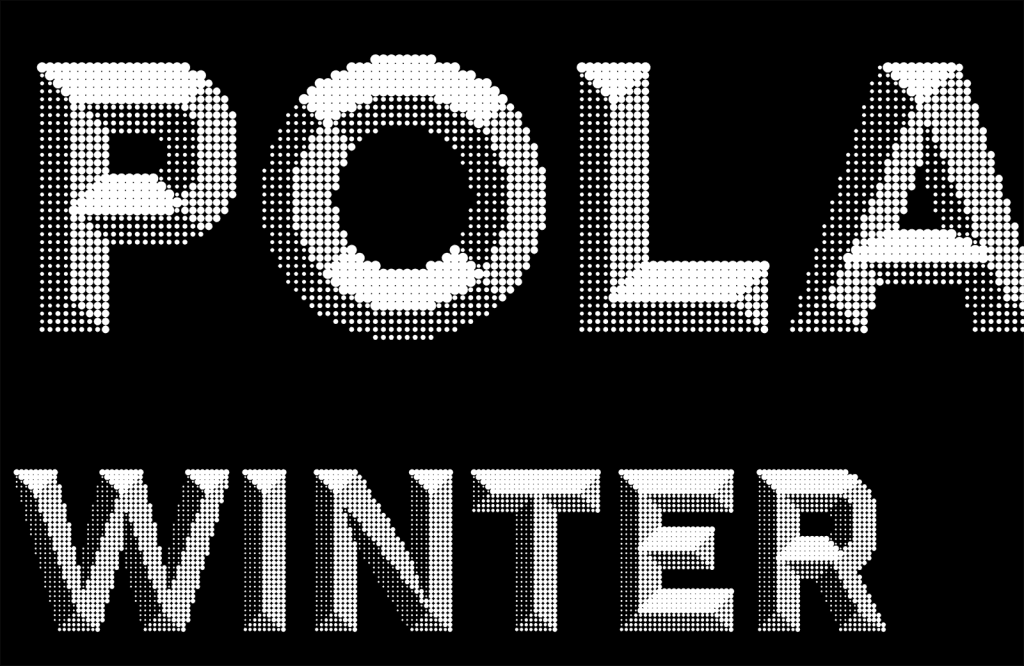
Raconteurs
Raconteurs is one of the most charming script fonts I’ve seen in some time. It loops and swirls, creating letterforms with a single stroke — if you drop a ribbon onto a page and have it magically form letters, they would look a lot like Raconteurs.
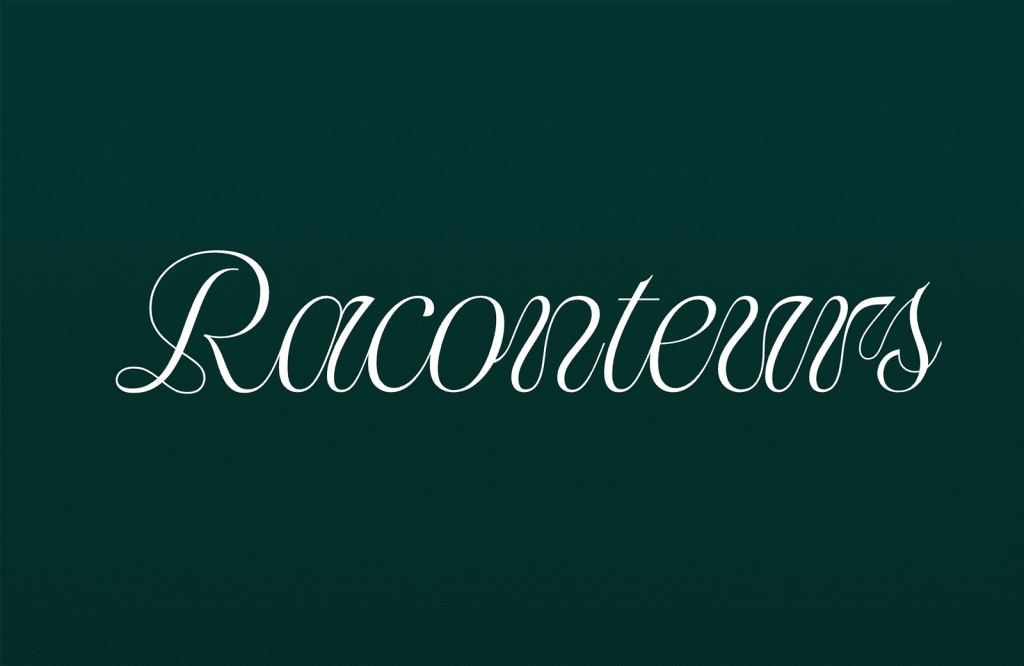
Kommuna
Kommuna is a monospaced serif—sometimes referred to colloquially as a typewriter font. It’s just had new bold and black weights added, and there are five widths available: Ultra Narrow, Normal, Wide, and Ultra Wide.
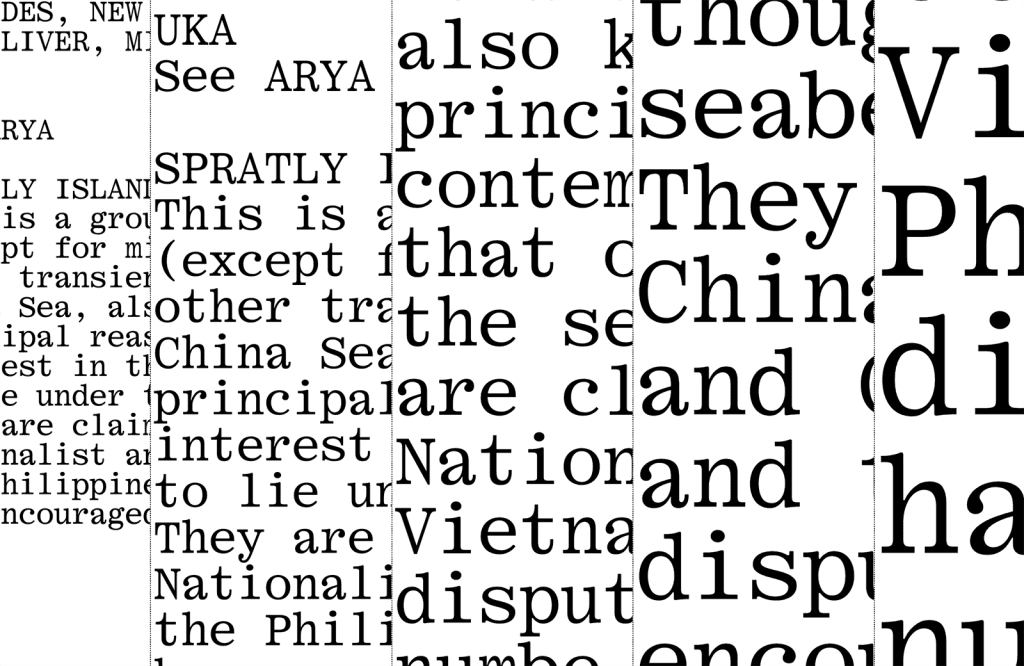
Thermal
Thermal is a contemporary serif available as a variable font with two axes — weight, and optical size. As the name suggests, thermal is a warm, enveloping typeface that is easy to read for extended periods and delivers character at display sizes.
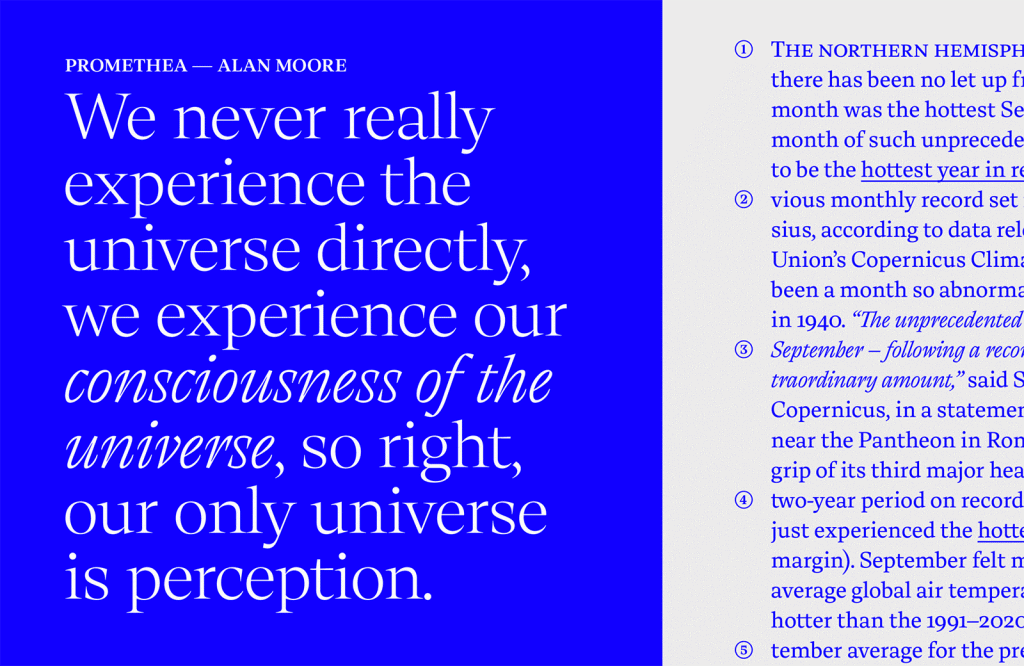
Bluteau Code
Bluteau Code is part of the Bluteau collection of typefaces, which includes 17 different families, from the original Bluteau to Arabic, Hebrew, math, slab, and more. We selected Bluteau Code from the group because finding a coding font with such elegance is rare.
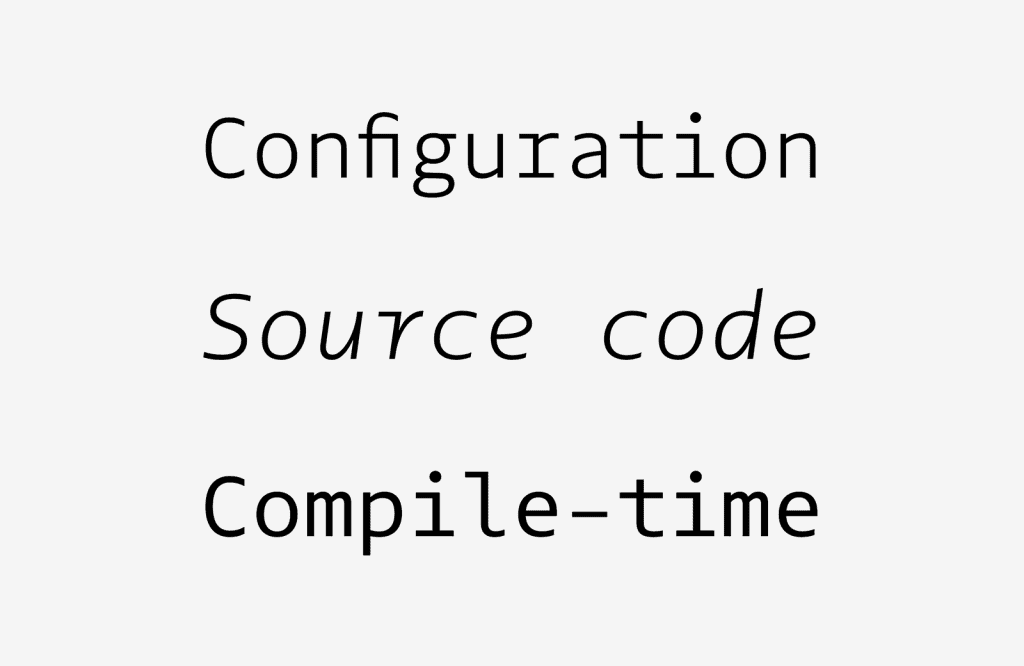
TT Espina
TT Espina is a popular display serif that has been fully updated with revised kerning, hinting, OpenType features, an extended character set including Cyrillic support, and new stylistic sets. It’s an excellent choice for display type that needs to stand out.
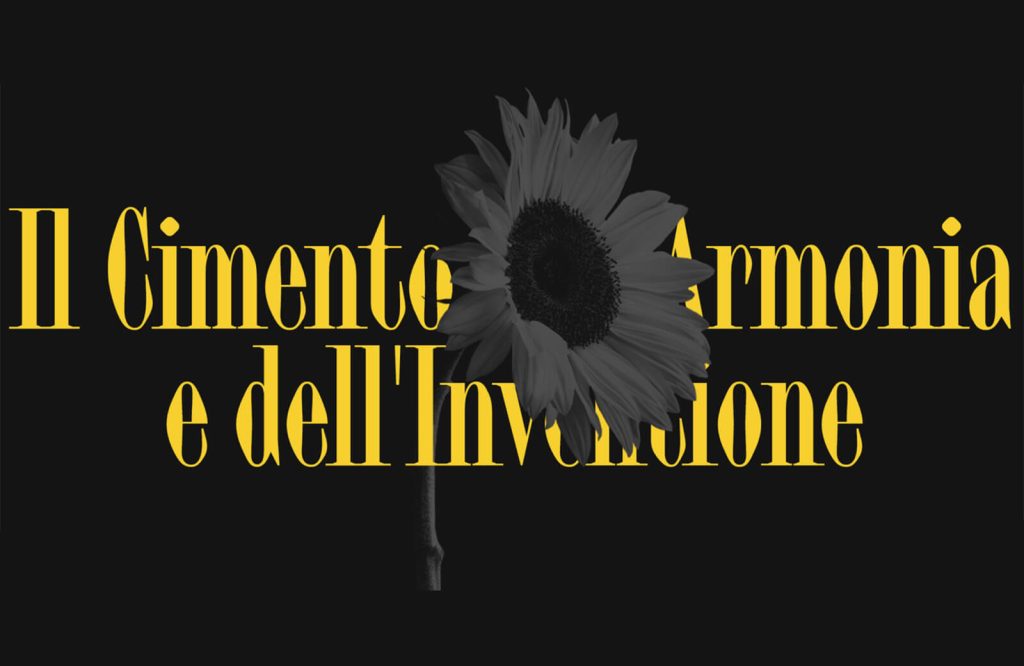
Beausite
Beausite is a type system of four different typefaces that use the same underlying structure. Classic, Fit, Slick, and Grand all apply different amounts of contrast to a neo-grotesque skeleton, giving you plenty of options for mixing and matching.
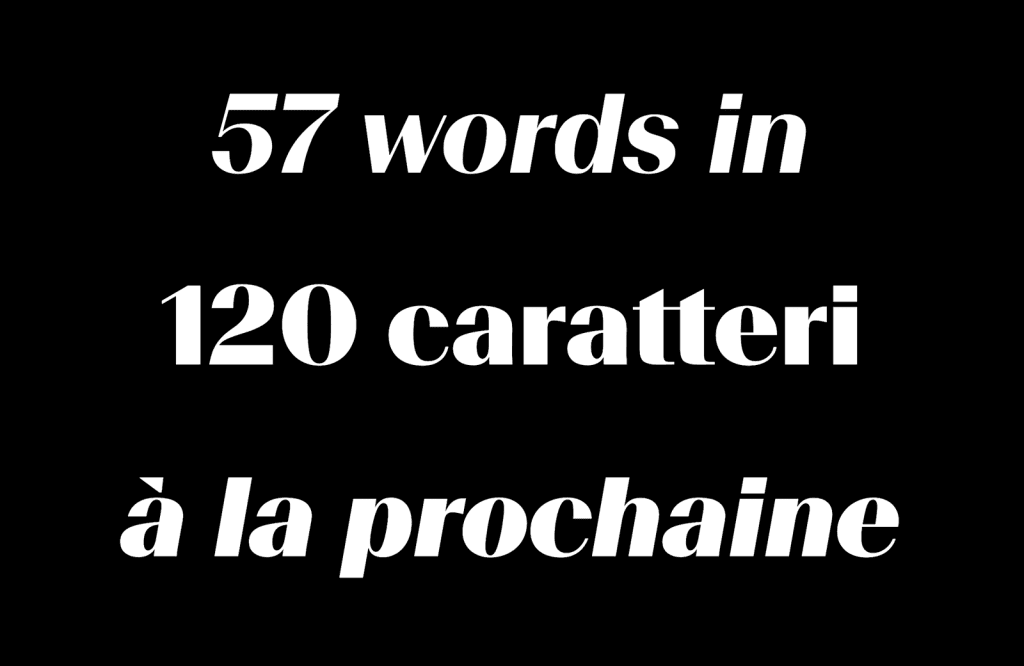
Unigeo
Unigeo is an 80s-inspired geometric sans that looks like it should adorn a VHS cassette or the cover of an early computer programming magazine. It’s available in five different variable fonts, of which the UNIGEO128 version is particularly pleasing.
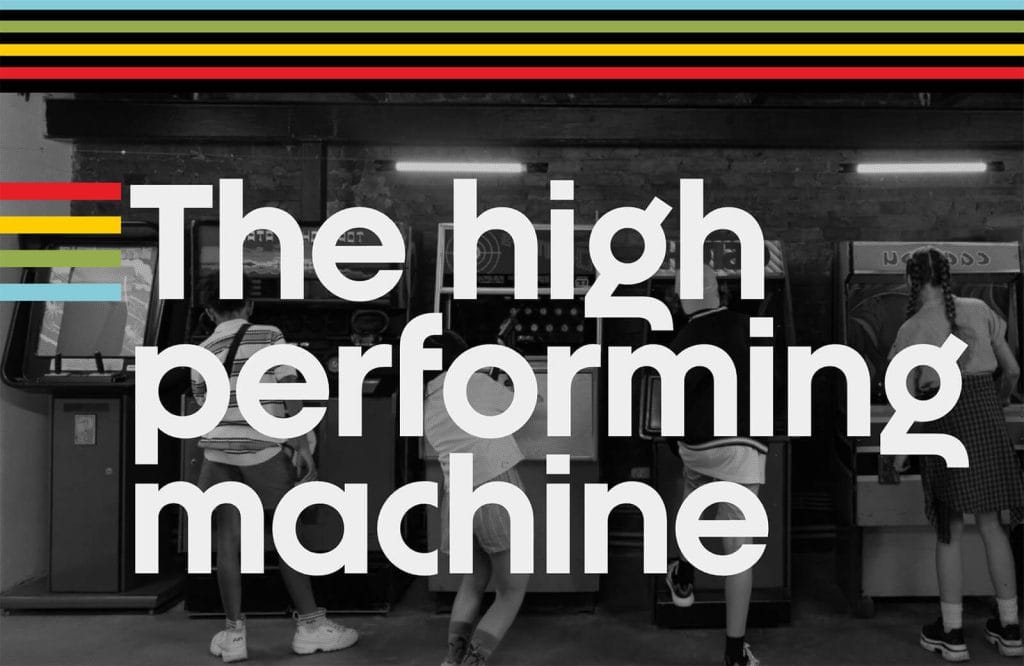
Bettoni
Bettoni is a beautifully executed Didone with three optically adjusted variations — Text, Subhead, and Display — providing a wealth of detail for fine typography.
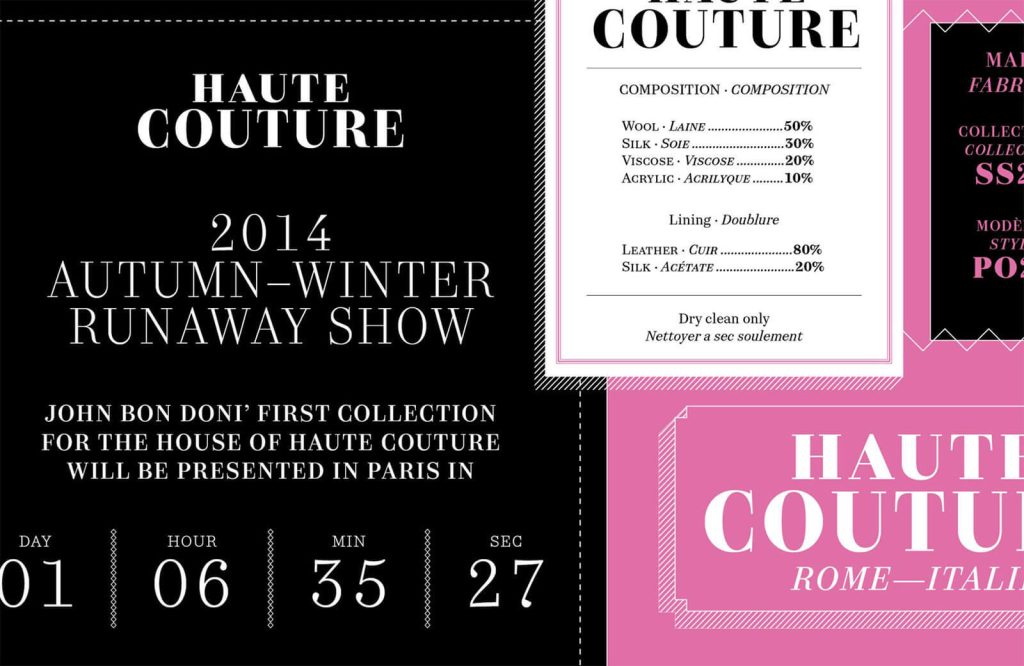
Gio
Gio is a bold serif typeface with acute brackets contrasting with sweeping curves in the lowercase. It works best as a display font. A condensed version is available that is useful for large headlines in limited space.
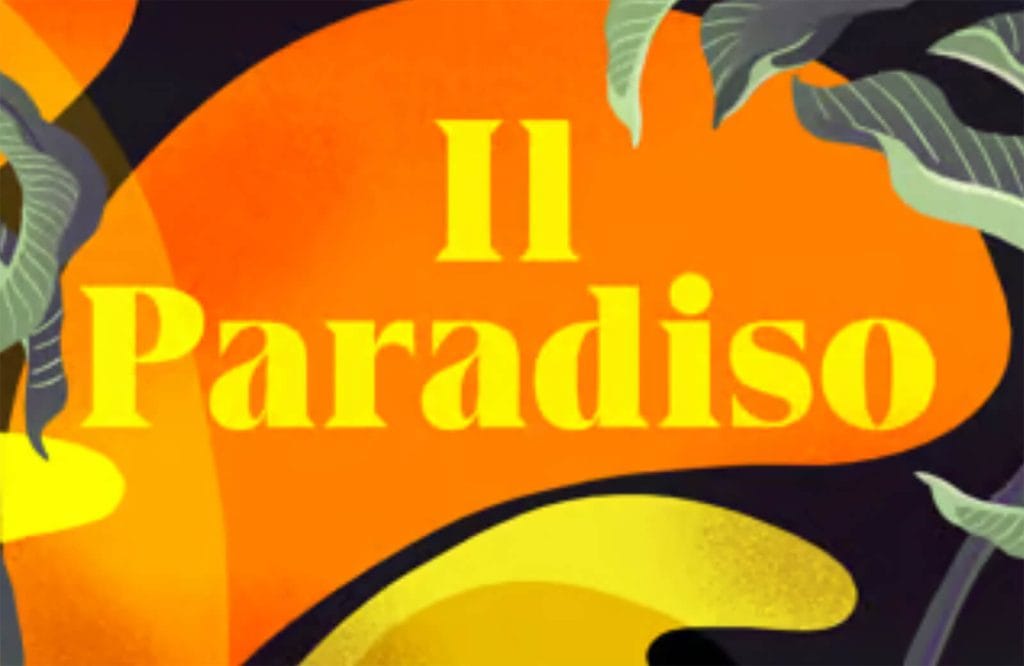
Luma Sans
Luma Sans is a wide geometric sans serif with almost circular bowls. Text set in Luma Sans feels simple and considered. It works great at large and small sizes and is available as a variable font.
Squil
Squil is a humanist sans serif with bent stems that hint at calligraphy. It’s a variable font with two axes, one for weight and the other for the roundness of the corners. It’s friendly, contemporary, and very readable at small sizes.
Brushware
Brushware is a superb brush script that oozes casualness while being exceptionally readable even at smaller sizes. With a little tweaking, Brushware passes as hand-lettering at large sizes.
Lexik
Lexik is an expressive serif typeface. Its curves are broken by sudden angles, giving it a sharpness and a certainty, as if a broad-nib pen has been scratched over a page rather than stroked. If you were writing a political manifesto, you’d want it set in Lexik.
Krimi
Krimi is a narrow geometric sans serif inspired by vintage movie posters. The condensed shapes and thick strokes are visually appealing, and it works best at extremely large sizes and with small amounts of copy.